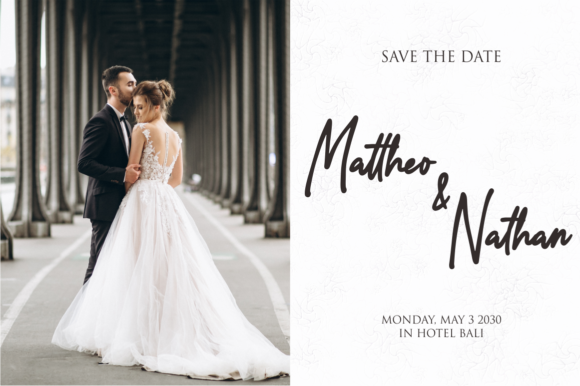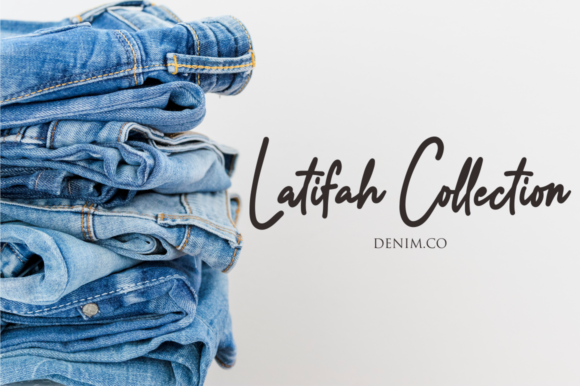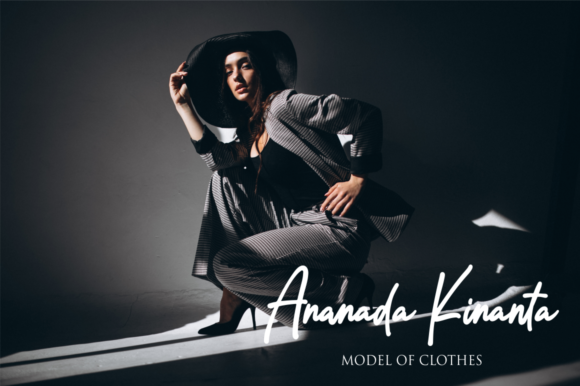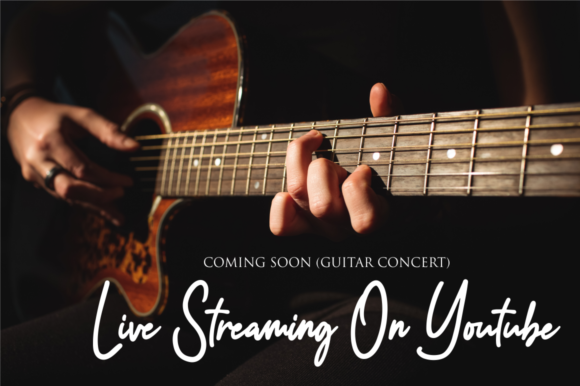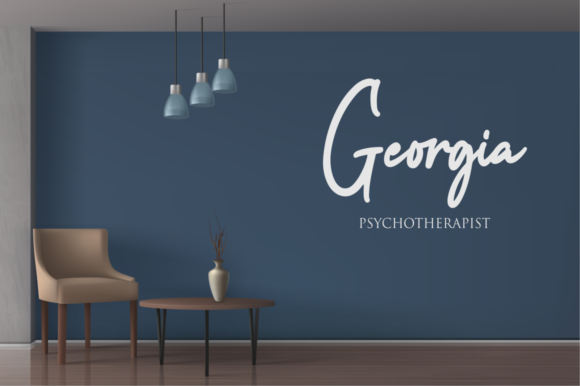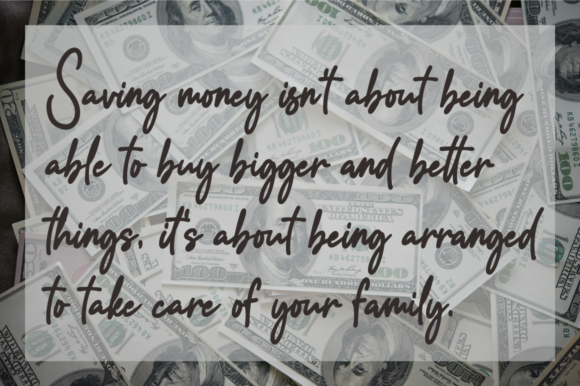
Introduction to Addison Brother Font
Addison Brother feels equally charming and elegant.
Key Features of Addison Brother Font
Why Choose Addison Brother Font?
Addison Brother Font offers exceptional quality and versatility, making it a valuable addition to your design toolkit. Whether you’re creating for personal projects or commercial use, Addison Brother Font delivers professional results.